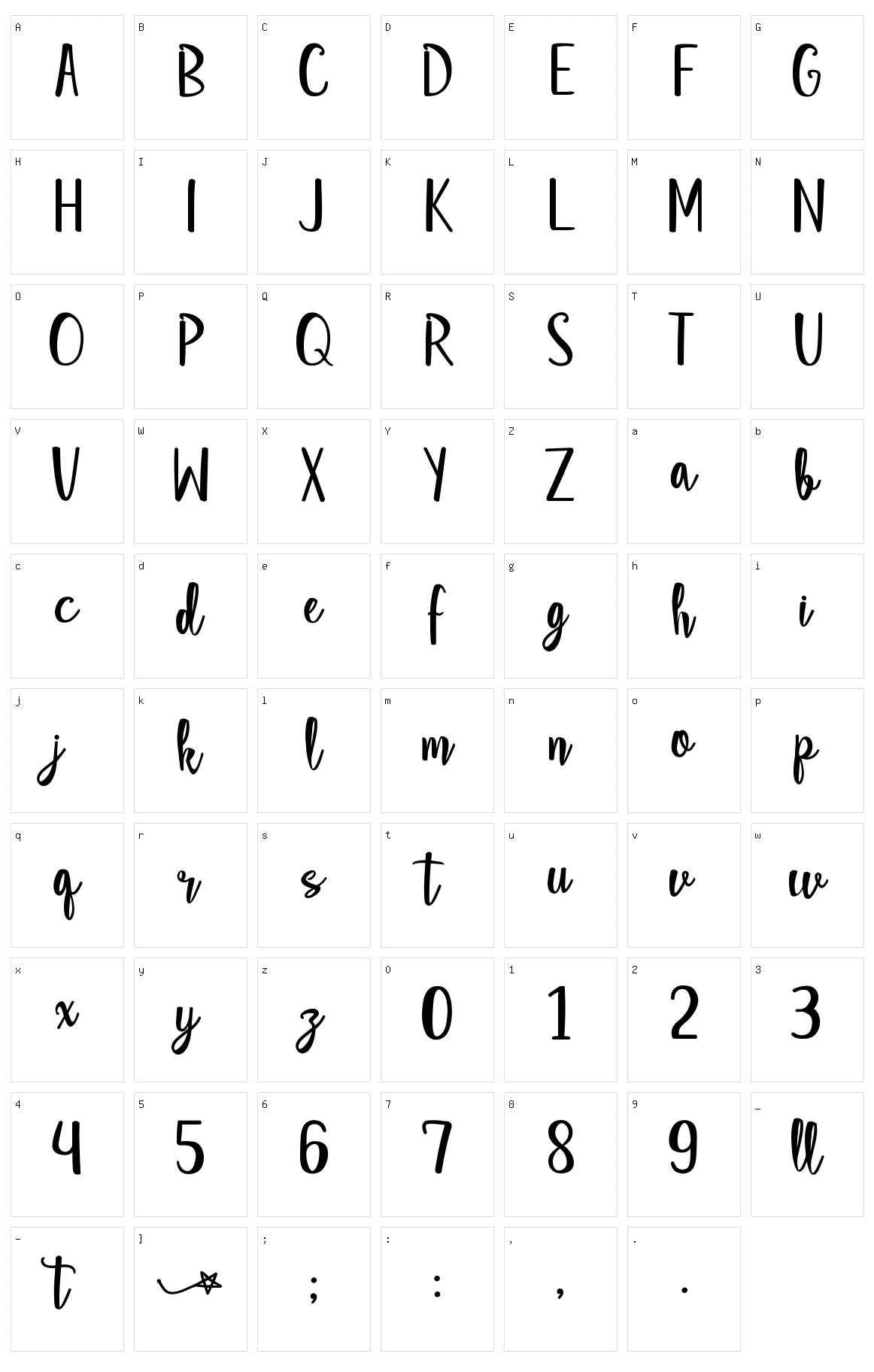
Star Strella
Designed by: Jaime Rangel Castro
This font is partial.
The complete version include:
- Alternates by using Open Type Features or PUA for b d g h j k l o t r s y z and &.
- Ligatures by using Open Type Features or PUA for aa cc dd ee ff ll mm nn oo pp rr ss and tt.
- 3 swashes by using Open Type Features or PUA.